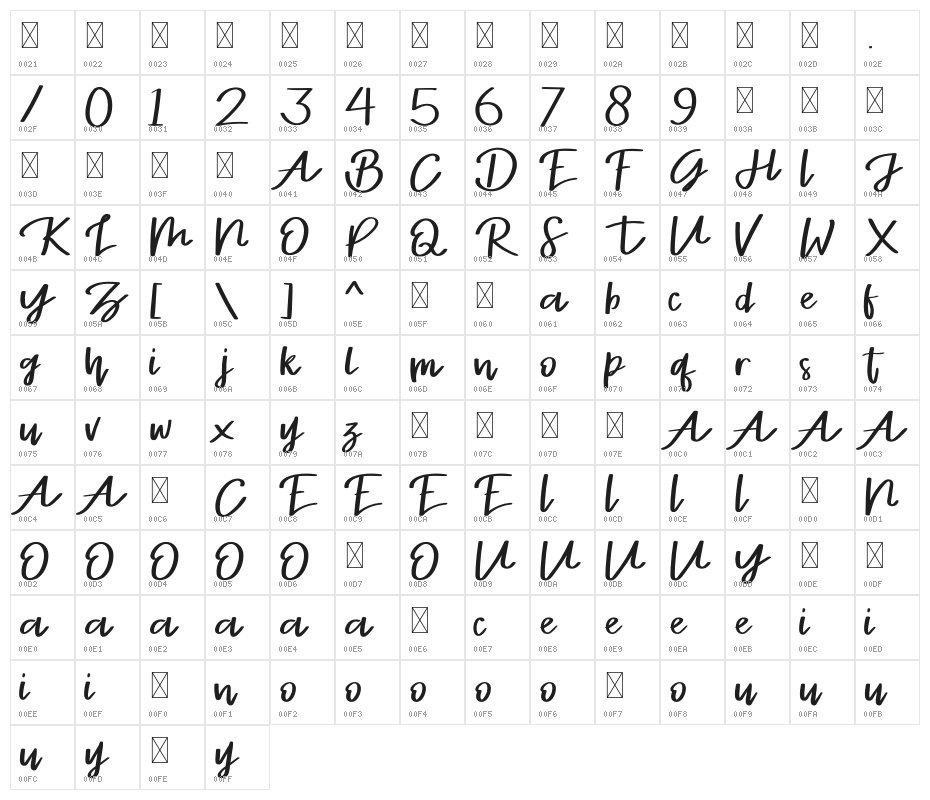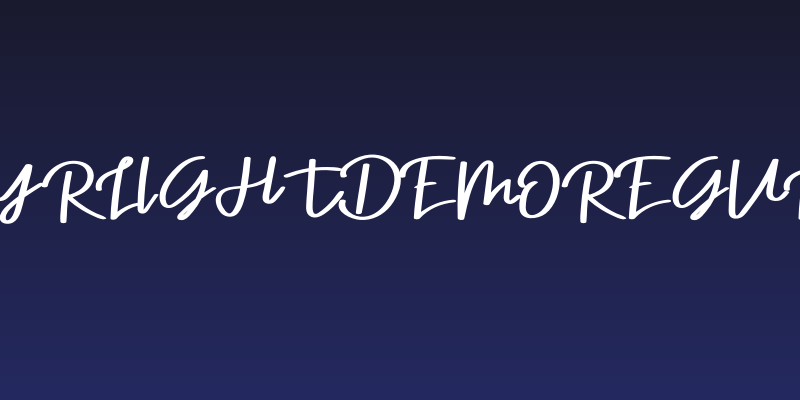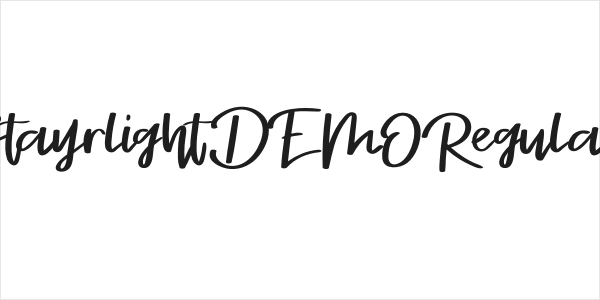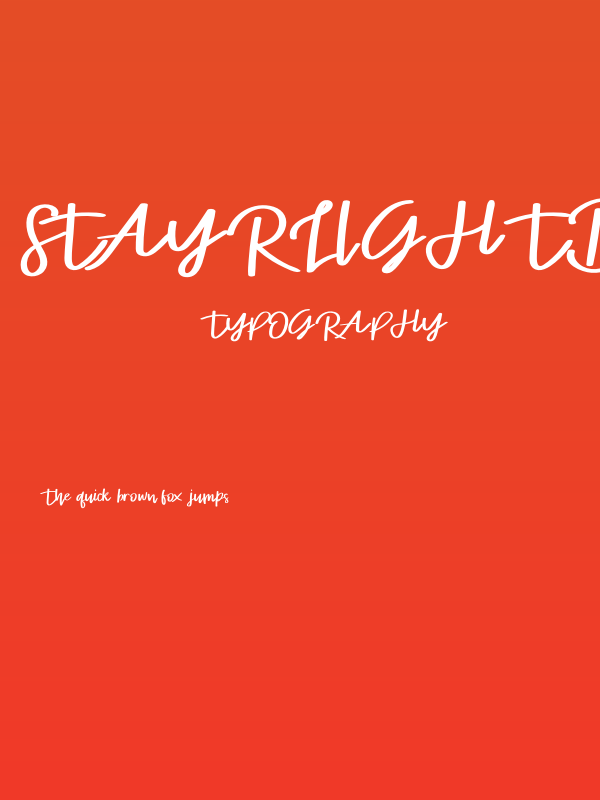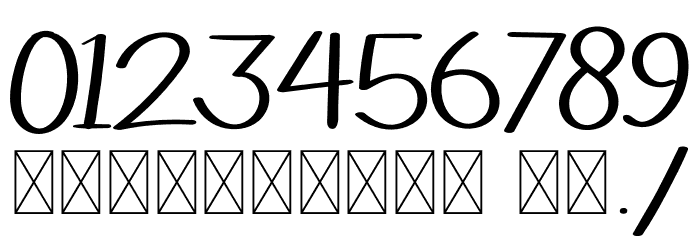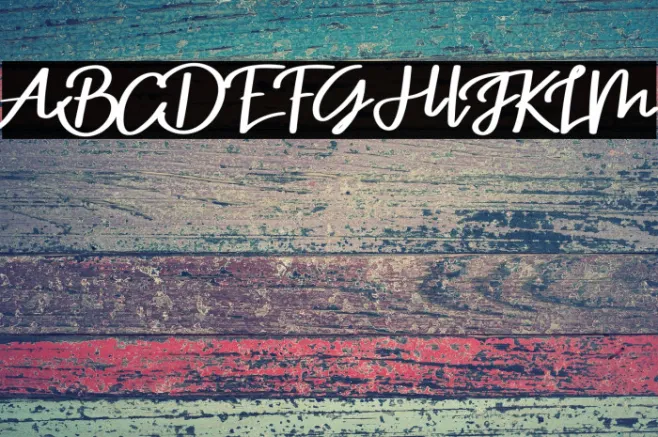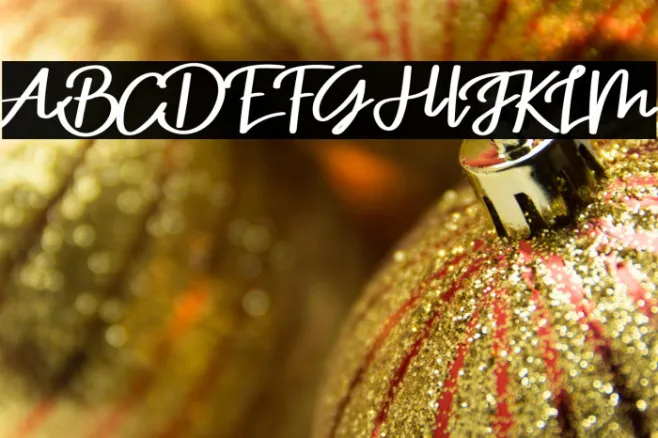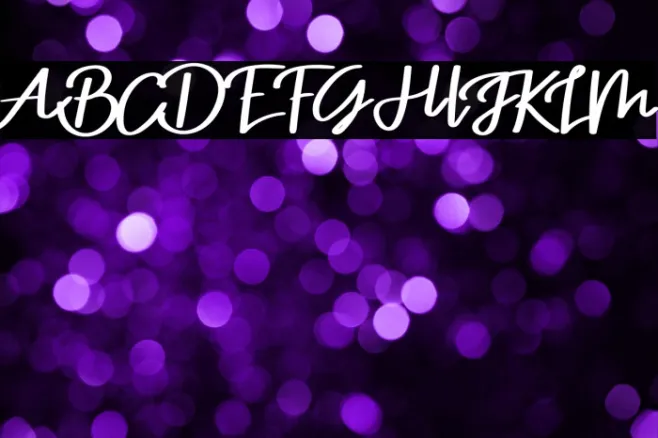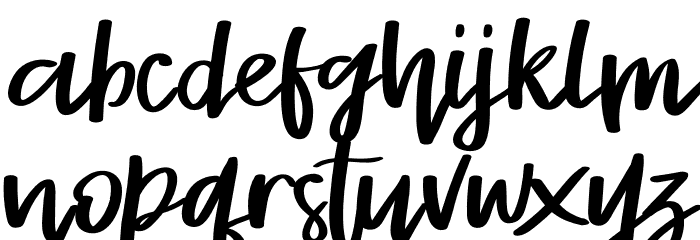
StayrlightDEMORegular Font
StayrlightDEMORegular Description
This font exudes a lively and dynamic script style, characterized by its flowing, cursive letterforms that convey a sense of elegance and movement. The uppercase letters are bold and slightly slanted, while the lowercase letters maintain a consistent rhythm with smooth curves and loops. The numerals are clear and legible, complementing the overall aesthetic. The special characters are integrated seamlessly, maintaining the font's cohesive appearance. This font is perfect for projects that require a personal touch, such as invitations, greeting cards, or branding materials.
| Proposed Projects | Ideal for invitations, greeting cards, branding, and personal projects. |